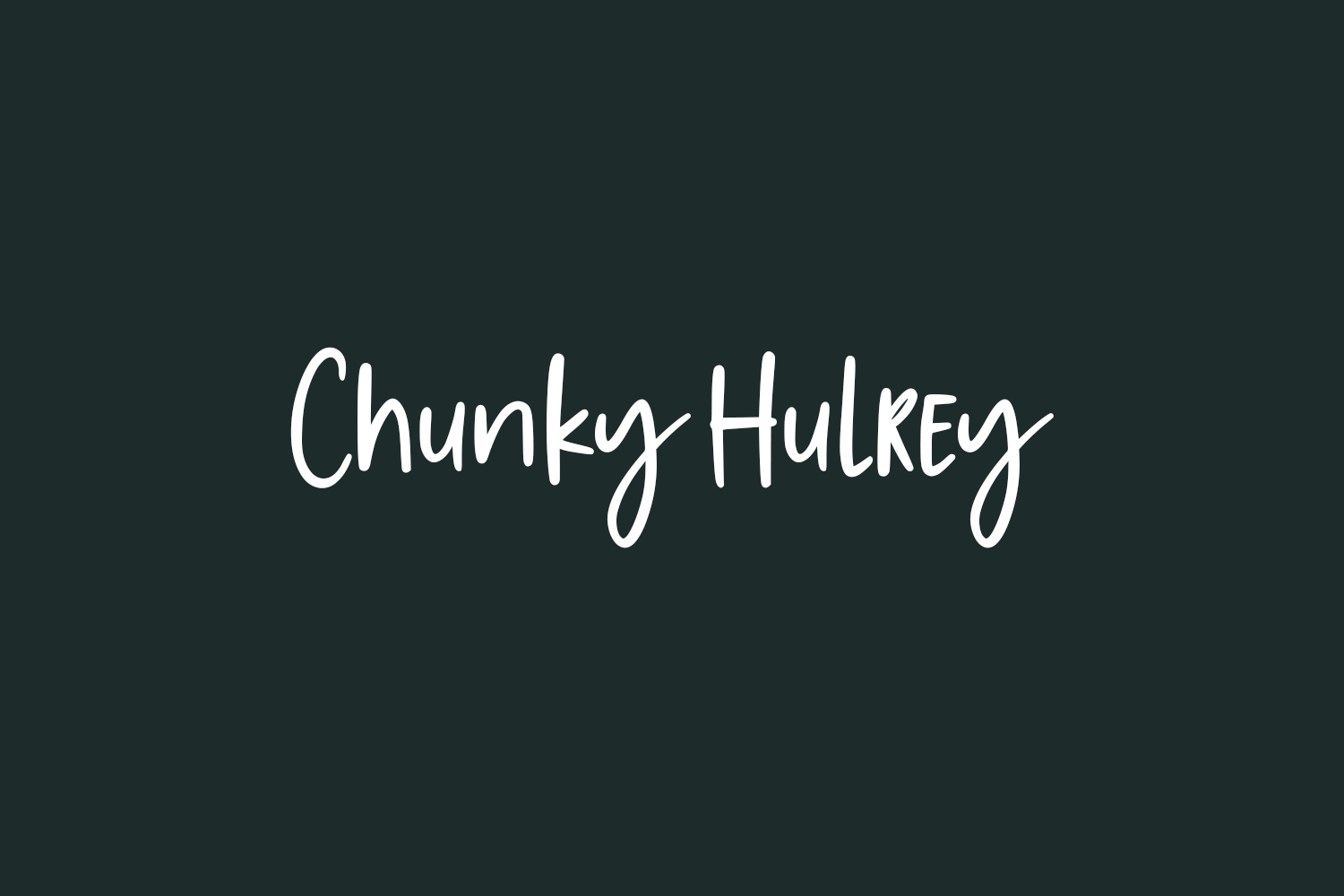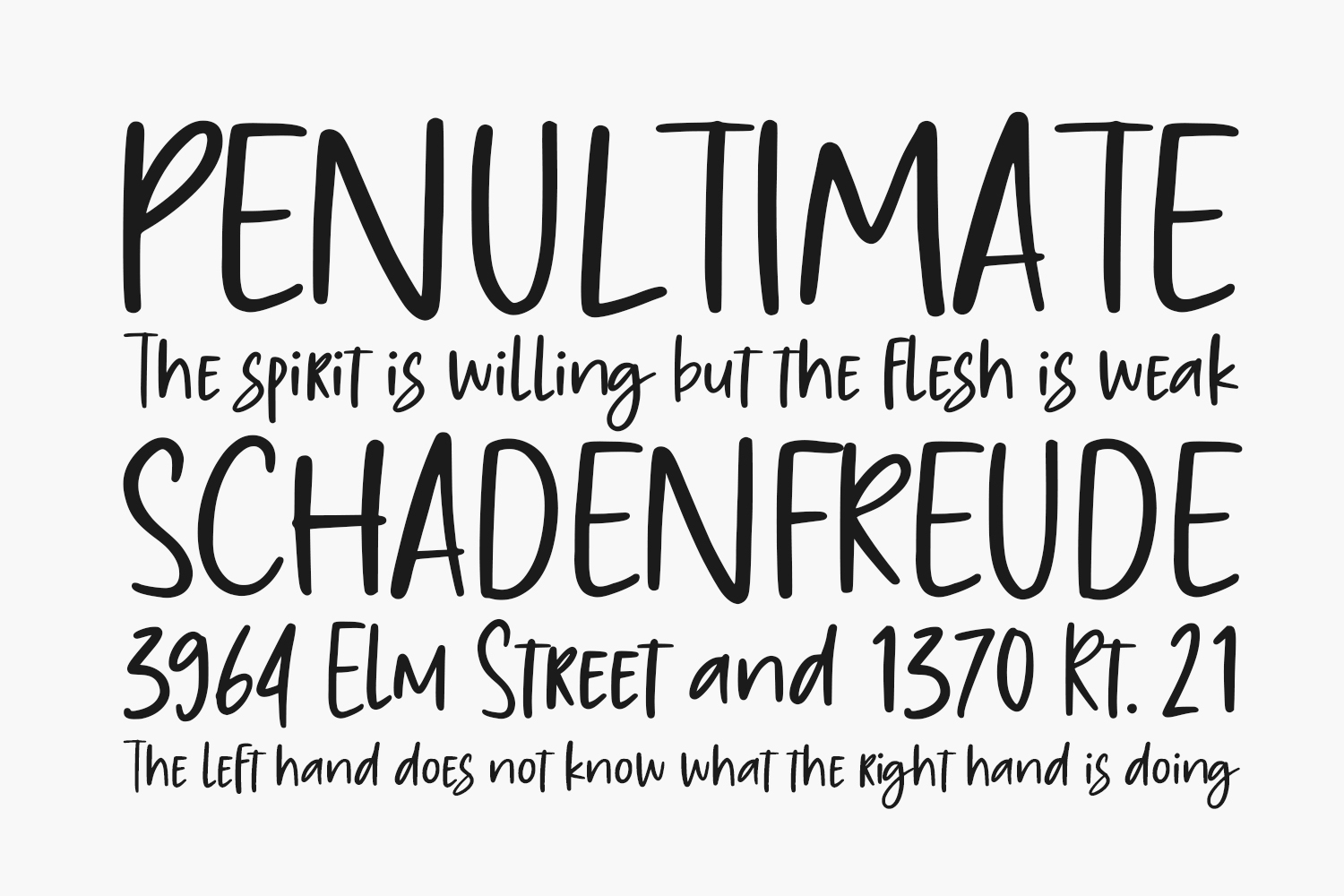
Chunky Hulrey Free Font is a laid-back and friendly handwritten font. It is the best choice for creating eye catching logos, branding and quotes. Every letter has a unique and beautiful touch, which will make your design come alive. Chunky Hulrey Free Font was designed by Nomlimofont and is free for personal use only. Please purchase the full version for commercial use.